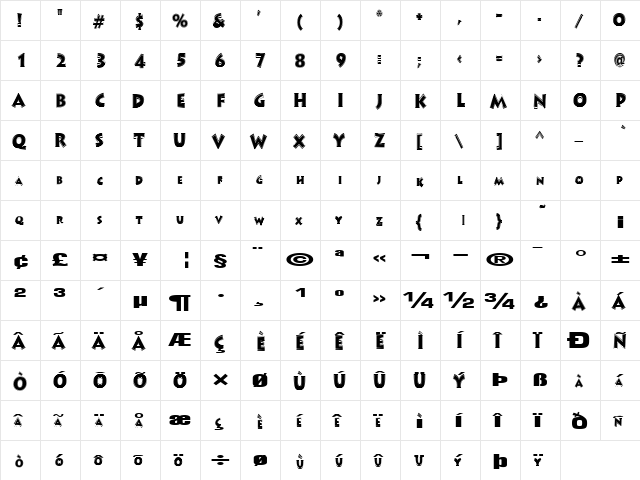
ArtistPursuit117 Regular
Design Context for ArtistPursuit117 Typeface
ArtistPursuit117 is a composed and adaptable typeface that performs quietly and consistently across a wide range of design contexts.